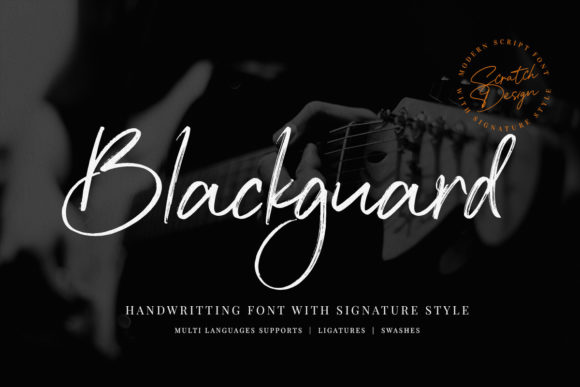
I still remember the frustration of working on a project, hours spent on designing the perfect layout, only to hit a roadblock when it came to choosing the right font. My client wanted something modern, stylish, and eye-catching, but I just couldn’t seem to find the perfect fit. That was until I stumbled upon the Blackguard Font ✨. It’s a game-changer, and I’m excited to share my experience with you.
An Honest Review of Blackguard Font
- ✨ Modern and stylish: Blackguard Font is a beautiful, handwritten font that adds a touch of elegance to any design.
- ✅ Versatile: It looks outstanding on colorful backgrounds and shines as a headline in minimalist designs.
- 💡 OpenType features: The font comes with a range of OpenType features, including glyphs and stylistic alternates, giving you plenty of creative options.
While Blackguard Font is an excellent choice, there are a few things to keep in mind:
- 🤔 Limited use in body text: Due to its stylish and cursive nature, Blackguard Font might not be the best choice for lengthy body text. It’s perfect for headlines, titles, or short paragraphs, but may not be the most readable for extended content.
- ⚠️ Kerning issues: As with any font, you may need to adjust the kerning to ensure optimal spacing between letters.
The Designer Inspiration Behind Blackguard Font
While the true story behind Blackguard Font remains a mystery, it’s easy to imagine that it was created by a designer who wanted to craft a font that exudes modernity and style. Perhaps they drew inspiration from the world of fashion, where elegance and sophistication reign supreme. Whatever the inspiration, Blackguard Font is undoubtedly a masterpiece that deserves to be part of your design arsenal.
Q: What type of designs is Blackguard Font best suited for?
A: Blackguard Font is perfect for designs that require a modern, stylish, and elegant feel, such as luxury brands, high-end products, and creative projects.
Q: Is Blackguard Font suitable for body text?
A: While Blackguard Font is beautiful, it’s not ideal for lengthy body text. It’s best used for headlines, titles, or short paragraphs.